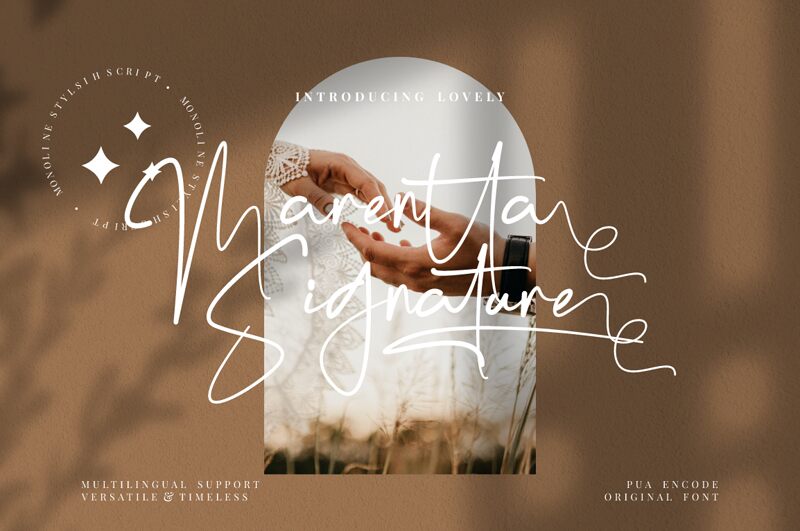
The Marentta Signature font by FinTypeStudio radiates an effortless, flowing elegance. This captivating handwritten script exudes a sense of personal charm and individuality, with its delicate strokes and natural flourishes evoking the graceful movements of a skilled calligrapher. The light weight and organic, signature-like appearance of the Marentta Signature lend an air of authenticity and personality to any design.
The Marentta Signature font's versatility makes it a compelling choice for a wide range of design projects. From wedding invitations and greeting cards to branding, packaging, and editorial layouts, this font's distinctive style can add a touch of refined sophistication and personalised flair. Its legibility and adaptability ensure a seamless integration into both traditional and modern design aesthetics, making the Marentta Signature an invaluable asset for creative professionals.